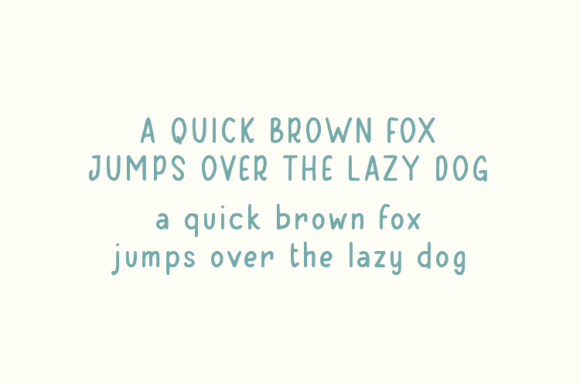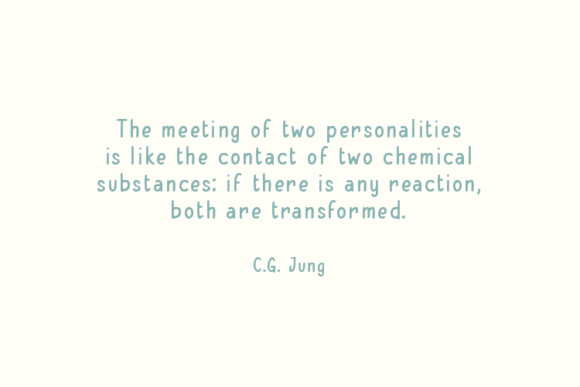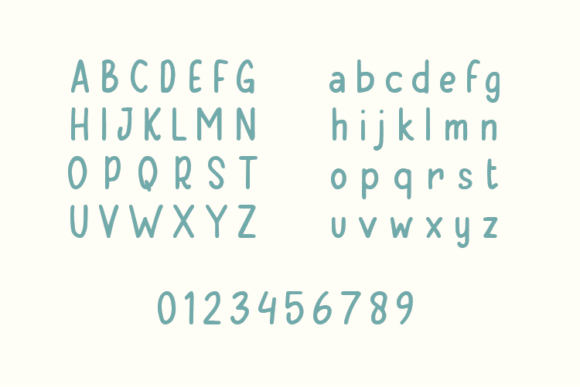
Hello Lemonade Font
About Hello Lemonade Font
Hello Lemonade is a beautiful and simple handwritten font. The curves in each arrangement make it look both unique and natural. This font is perfect for any design that has a happy feel to it.